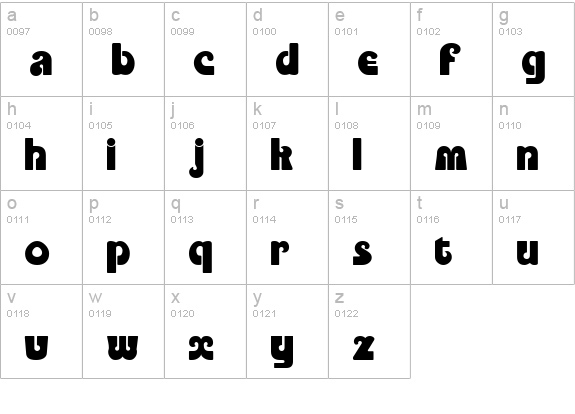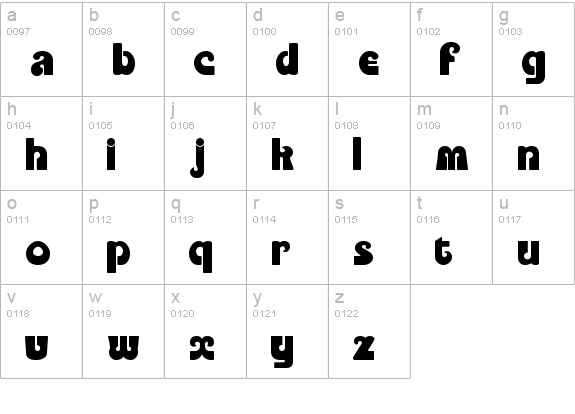
Saltire Font Details
Introducing Saltire Font, a stunning typeface that effortlessly combines elegance and versatility. This font is a true masterpiece, carefully crafted to bring a touch of sophistication to any design project. With its clean lines and balanced proportions, Saltire Font captivates the eye and commands attention. What sets Saltire Font apart is not only its impeccable design but also its accessibility. This font is freely available to download at FontsMarket.com, making it accessible to designers and enthusiasts alike. Its availability allows for limitless creativity and ensures that anyone can add a touch of class to their work, without any limitations or restrictions. Saltire Font is perfect for a wide range of design applications, from branding and logo design to editorial and packaging. Its versatility shines through in every letter, making it suitable for both formal and informal projects. Whether you're creating a luxury brand or a modern website, Saltire Font will elevate your design to new heights. The attention to detail in Saltire Font is truly remarkable. Each letter is meticulously crafted, resulting in a harmonious and cohesive typeface that exudes elegance. The subtle curves and refined strokes create a sense of fluidity, while the generous spacing ensures legibility and readability in any context. With its extensive character set, Saltire Font supports multiple languages, making it a valuable asset for global design projects. Its versatility extends to various weights and styles, allowing for seamless integration across different media and platforms. In conclusion, Saltire Font is a remarkable typeface that effortlessly combines elegance and versatility. Its accessibility, as a freely available font on FontsMarket.com, ensures that designers and enthusiasts can unleash their creativity without constraints. With its impeccable design and attention to detail, Saltire Font is the perfect choice for anyone looking to add a touch of sophistication to their designs.